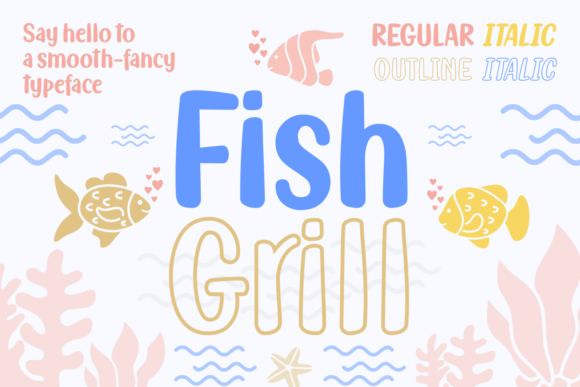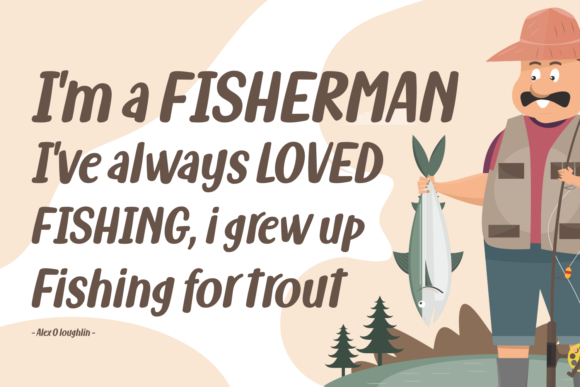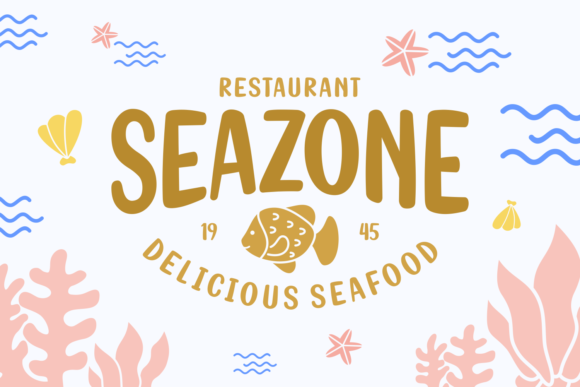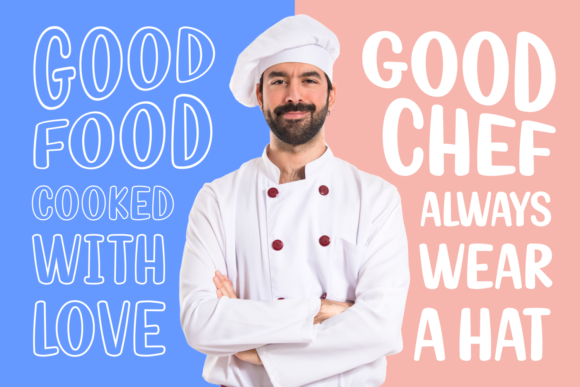
Fish Grill Family Font
About Fish Grill Family Font
Fish Grill Family offers a fun and adorable style for any design projects that need a unique feel. Get inspired by its unique aquatic theme.